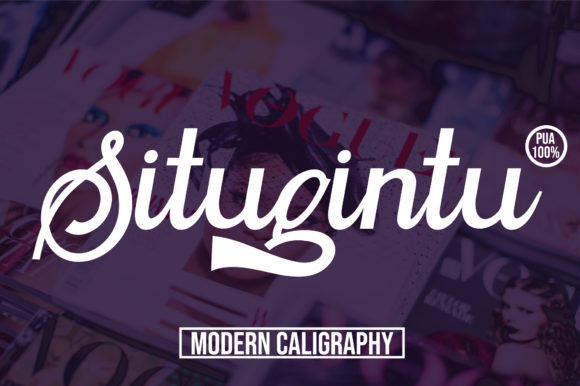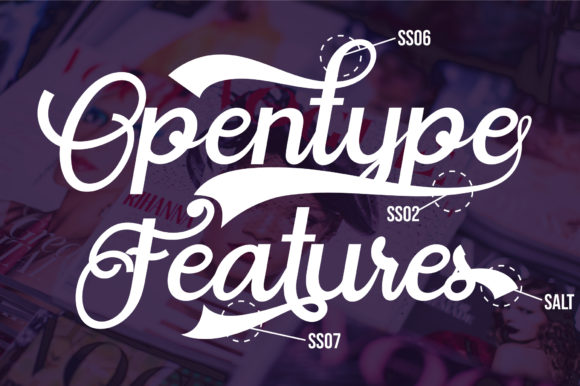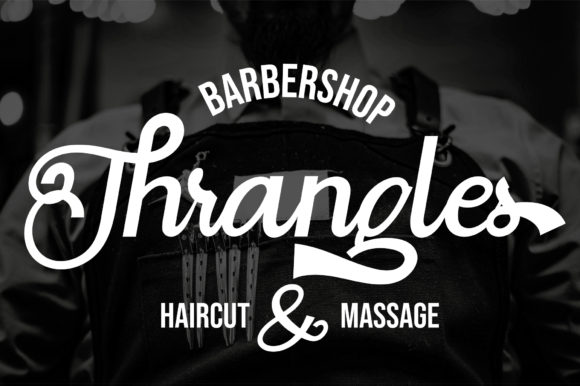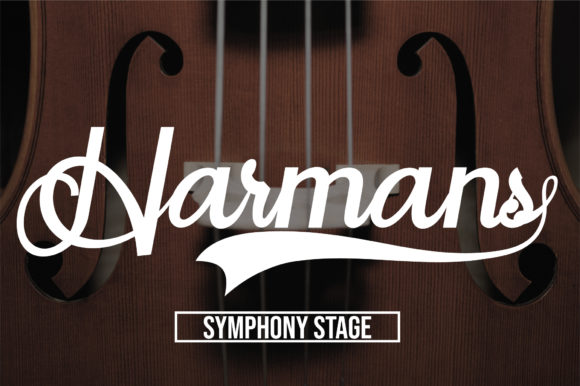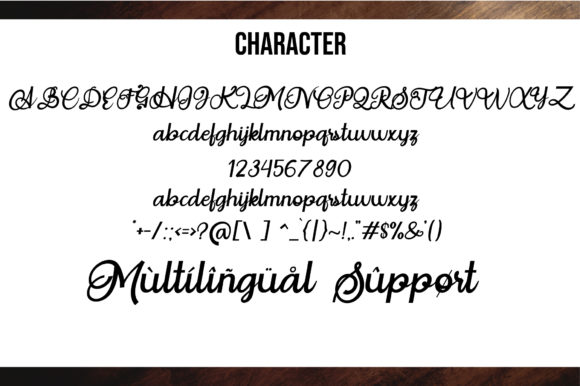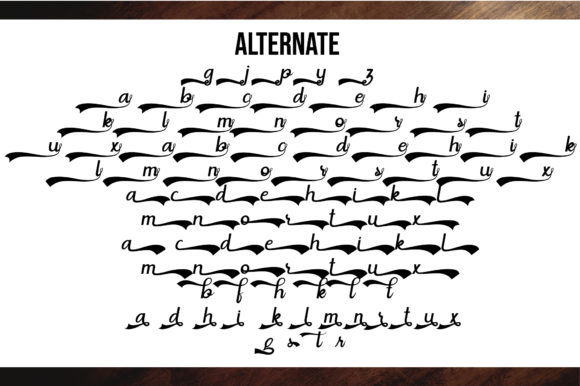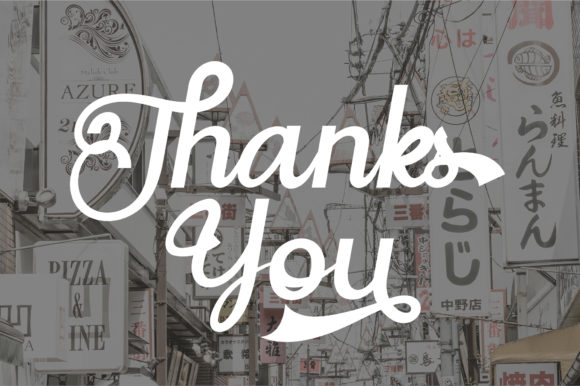
Situgintu Font
About Situgintu Font
Situgintu is a beautiful and bold handwritten font with powerful features. This one-of-a-kind font will turn any design project into a stand out!